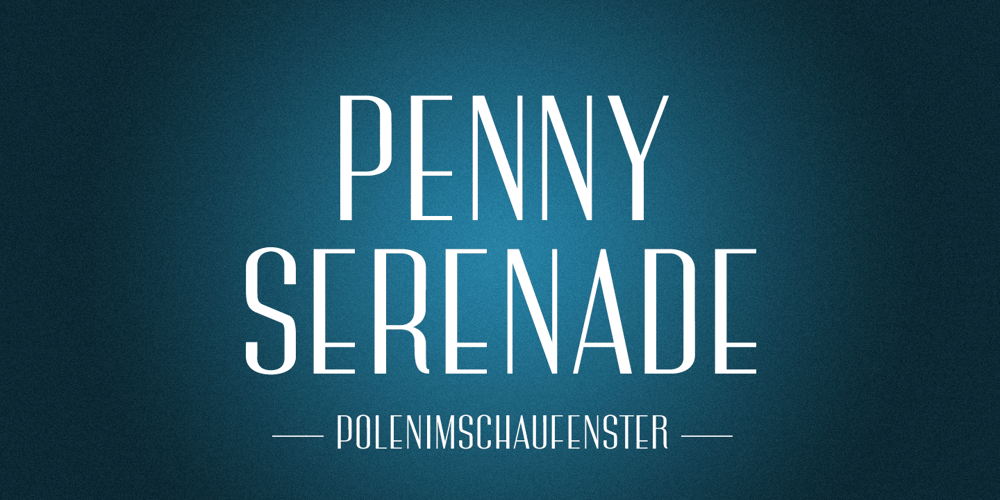
PiS Penny Serenade Font Family was designed by Hannes Siengalewicz and published by PiS. PiS Penny Serenade contains 1 styles and family package options. PiS Penny Serenade is an elegant all caps high-contrast sans with some serif-y elements in the caps, inspired by the handwritten titles of the 1941 melodrama movie of the same name. Be sure to use the art deco style alternate glyph set for more 1920s vintageness!